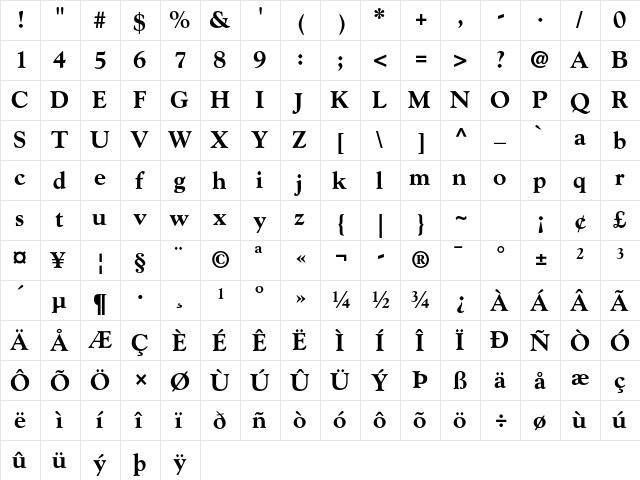
Goudy Std Extra Bold Font Preview
Goudy Std Extra Bold
| Designer | Frederic W. Goudy, Morris Fuller Benton |
Design Context for Goudy Std Typeface
Goudy Std is a composed and adaptable typeface that performs quietly and consistently across a wide range of design contexts. The heavy weight commands attention and anchors typographic hierarchies.